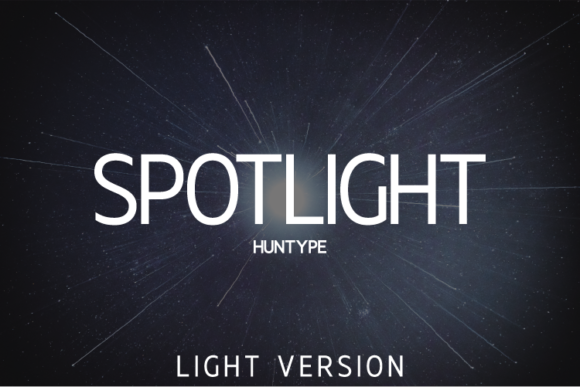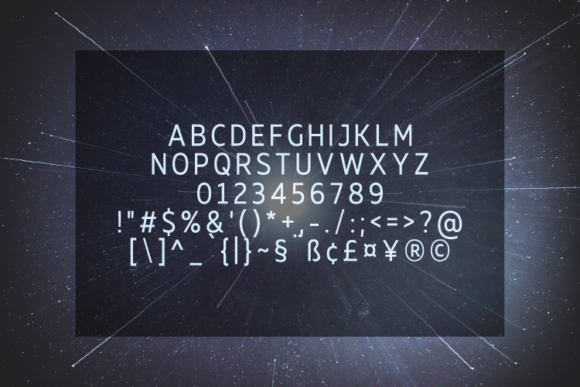
Spotlight Light Font
About Spotlight Light Font
Spotlight features low contrast strokes and balanced letters that make this sans serif excellent for large arrays of text. The individually developed glyphs make it possible to use it successfully as a display font. Spotlight stands out with its laconism, simplicity, and sharpness of forms.